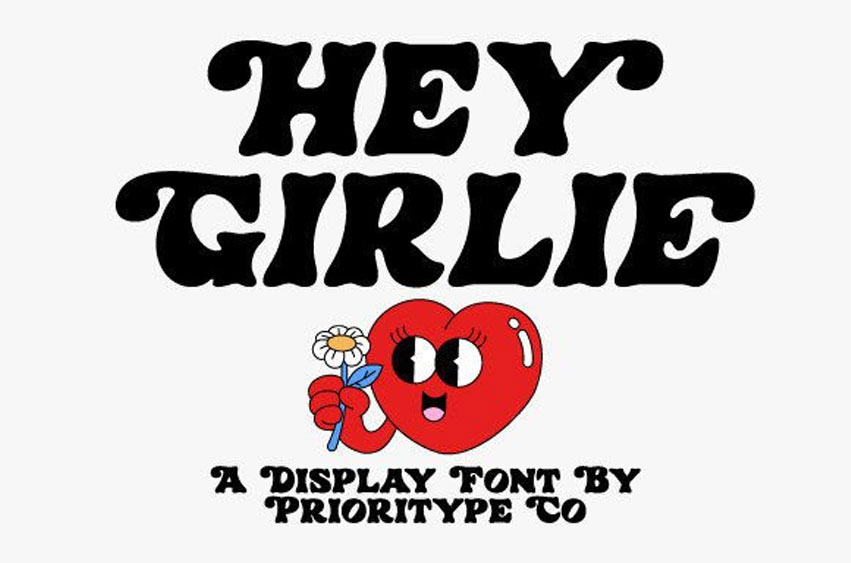
Hey Girlie Font
Hey Girlie Font is a catchy display font. Equipped with alternative characters to expand your design style.
There are two styles, namely regular and slant. Perfect for merchandise designs, posters, titles, stickers, etc.